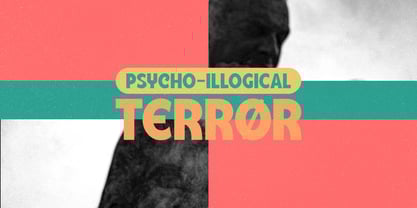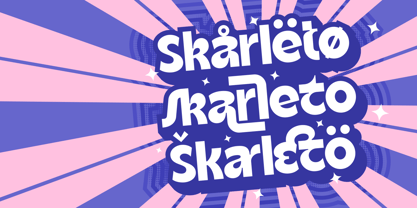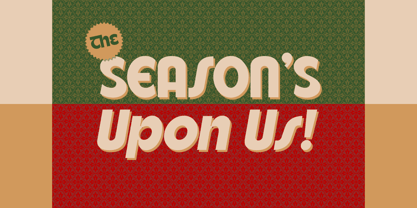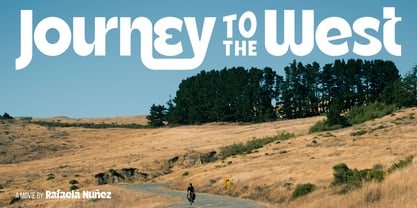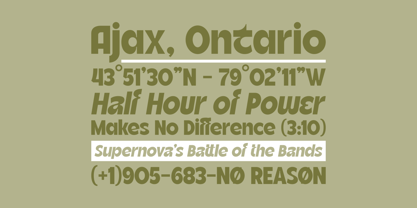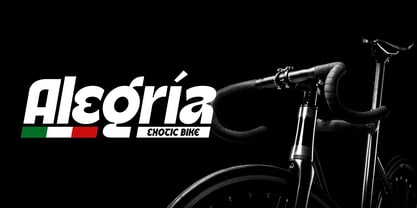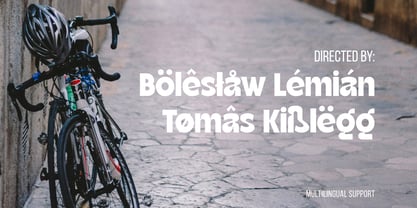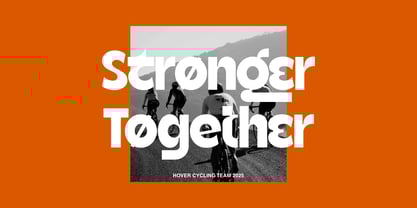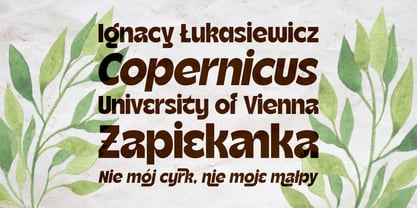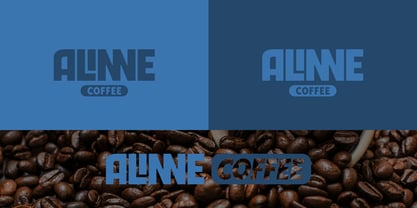
Skarleto
by Fontdation
The Skarleto Font Family was designed by Fahrizal Tawakkal and published by Fontdation. Skarleto contains 2 styles and family package options.
Check out our latest font release: Skarleto, a bold, playful and funky display sans serif that are inspired by the nowadays trend. Crafted with high attention to details, crisp edges and smooth lines are guaranteed. Packed with some alternate characters and ligatures, let you play with wider imaginations.
Skarleto suits best for any kind of designing themes, such as: logo/branding, quote designs, poster designs, headline, packaging, etc.